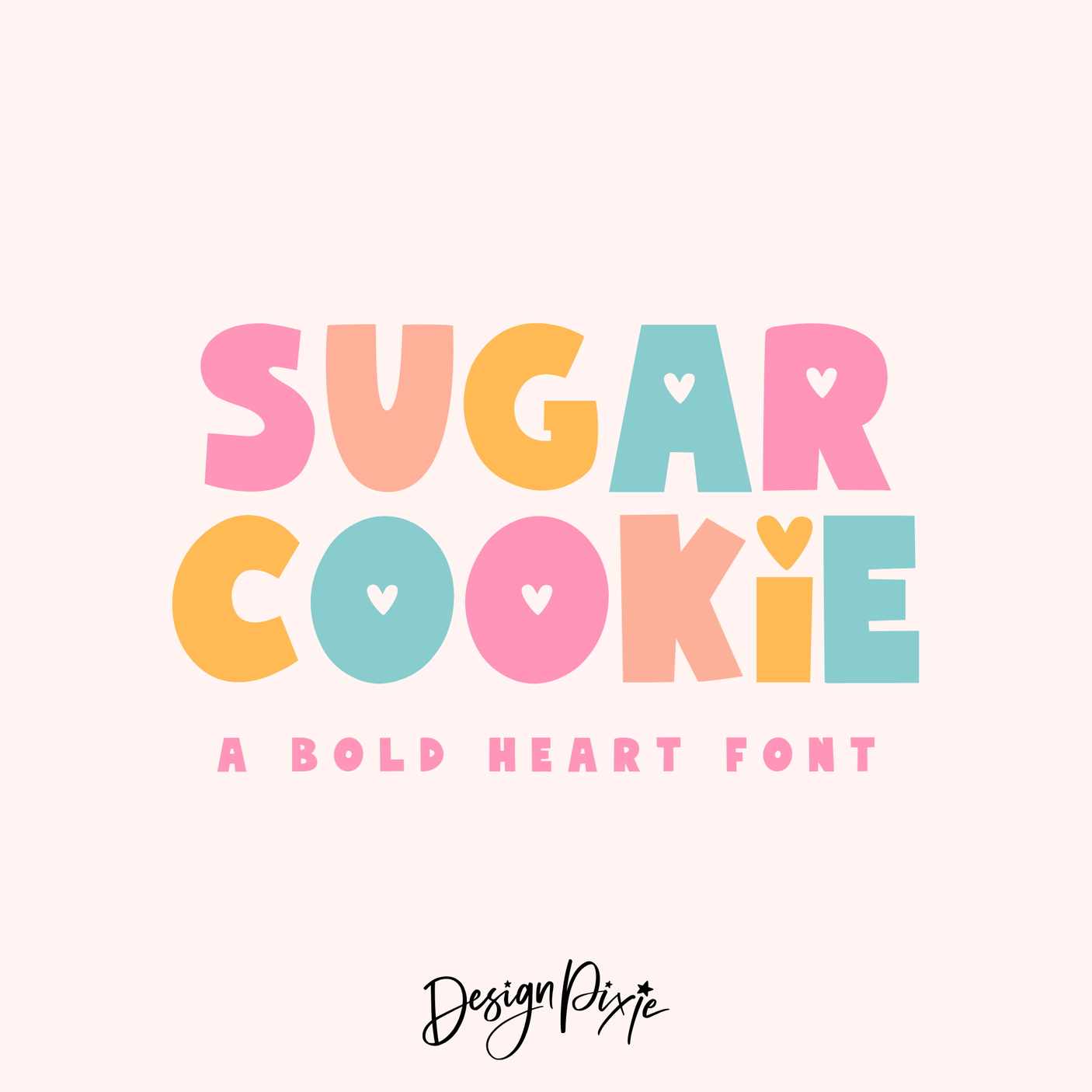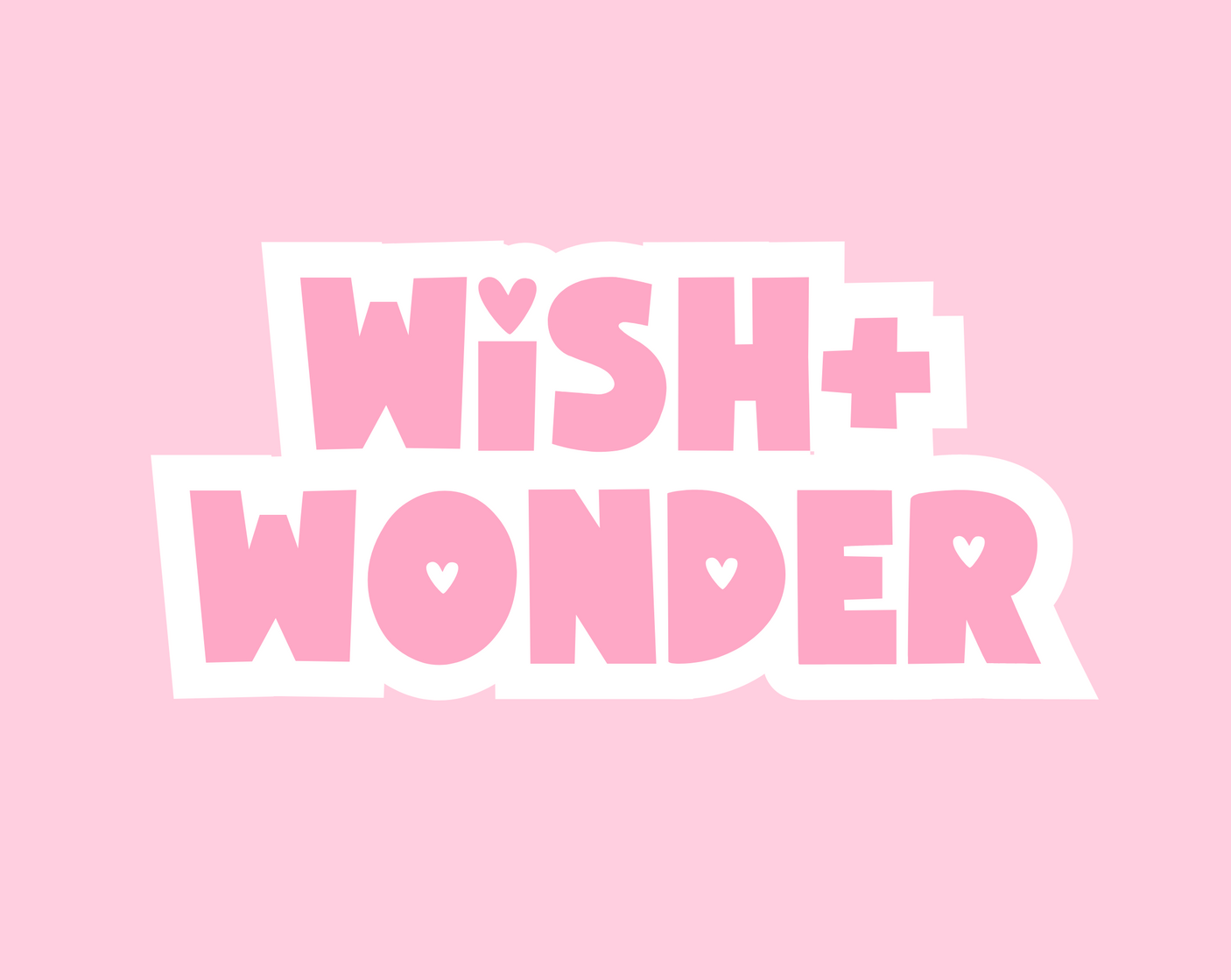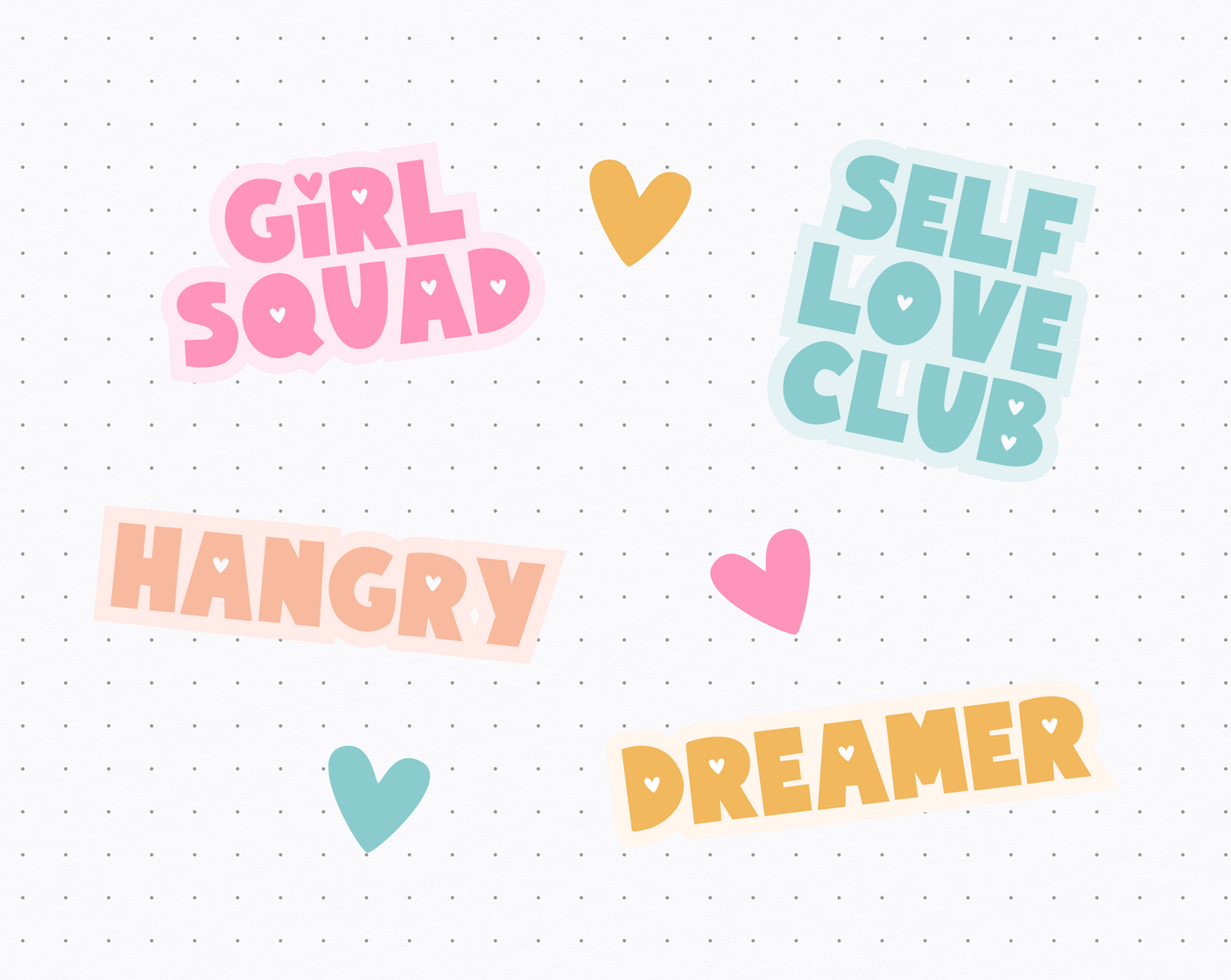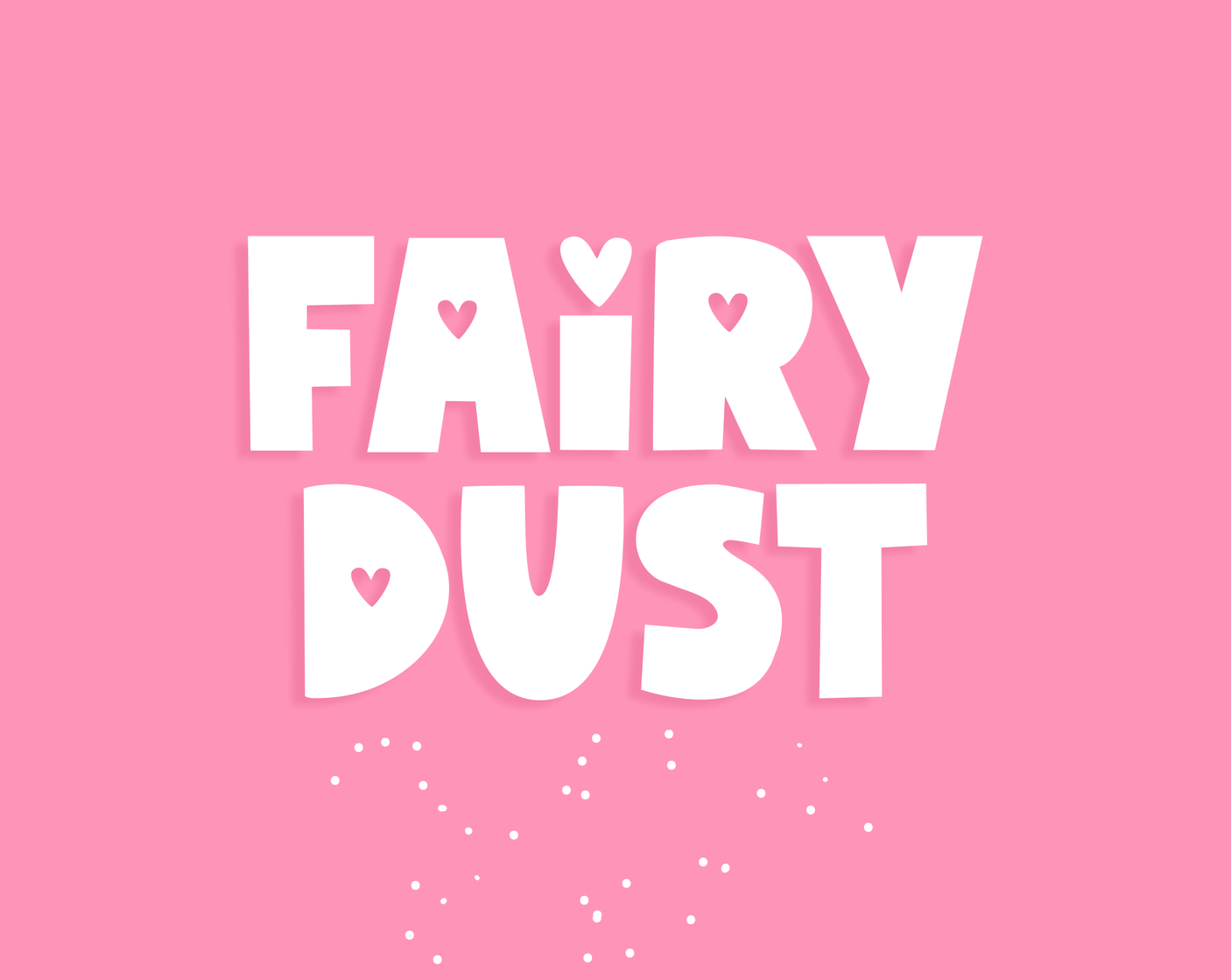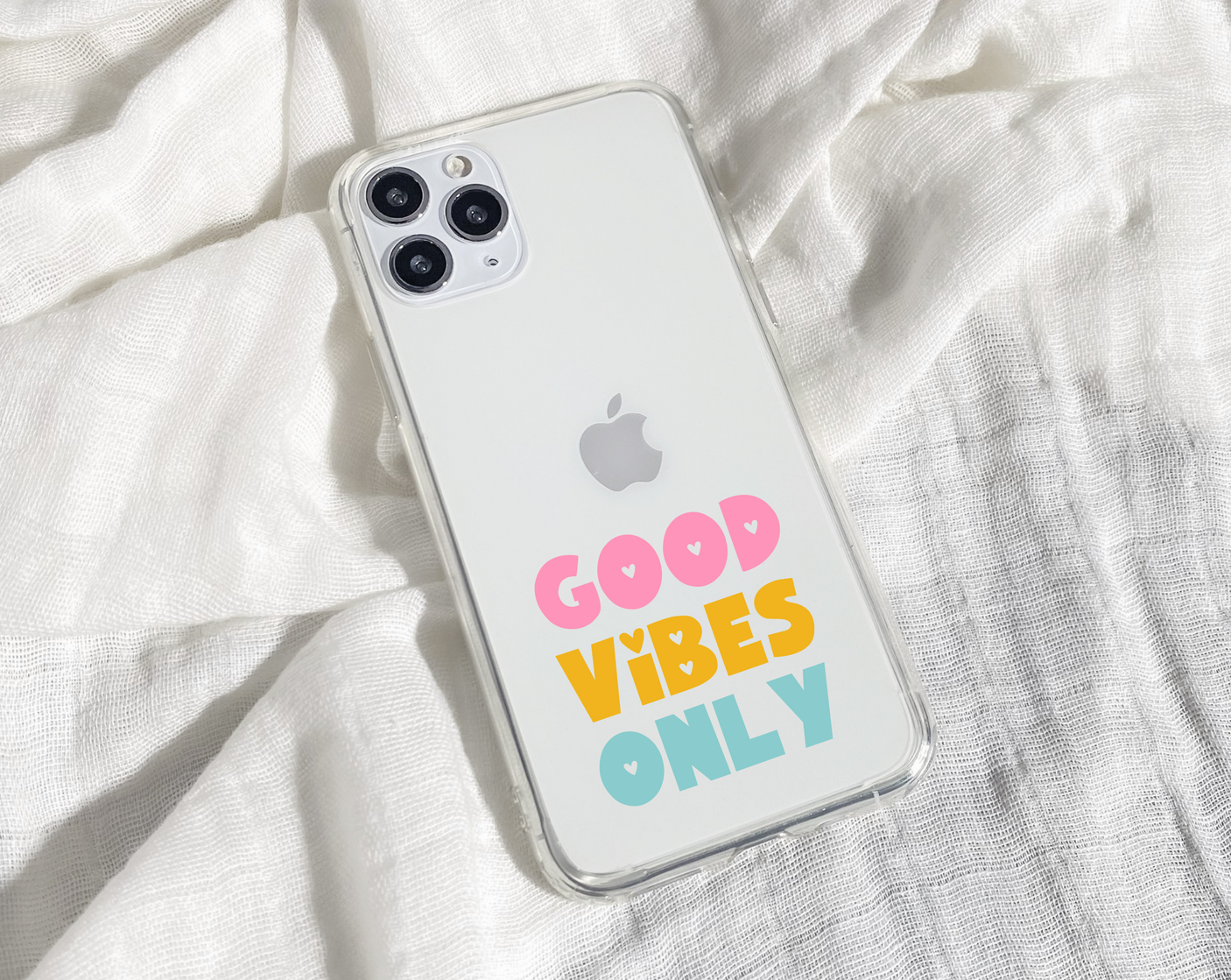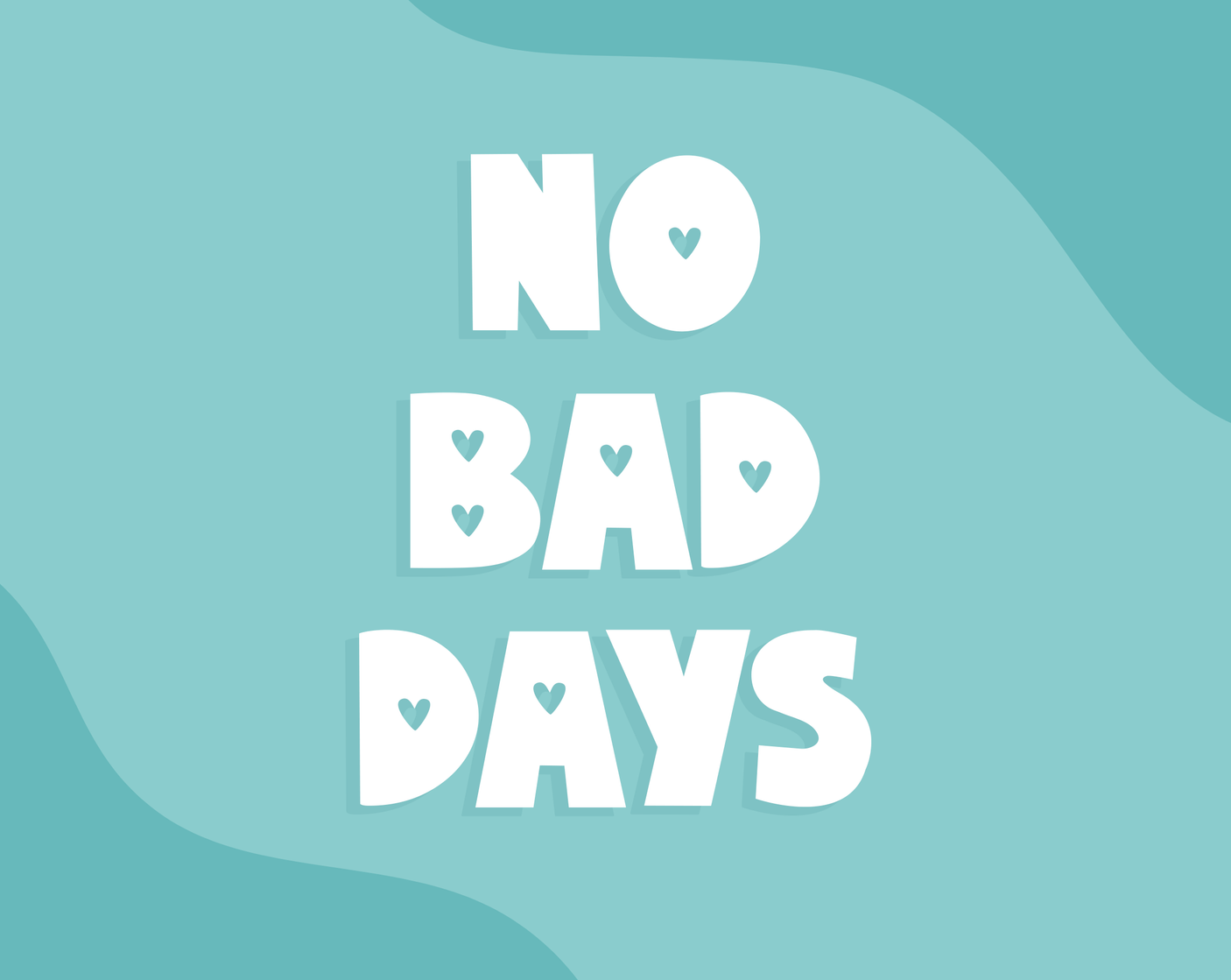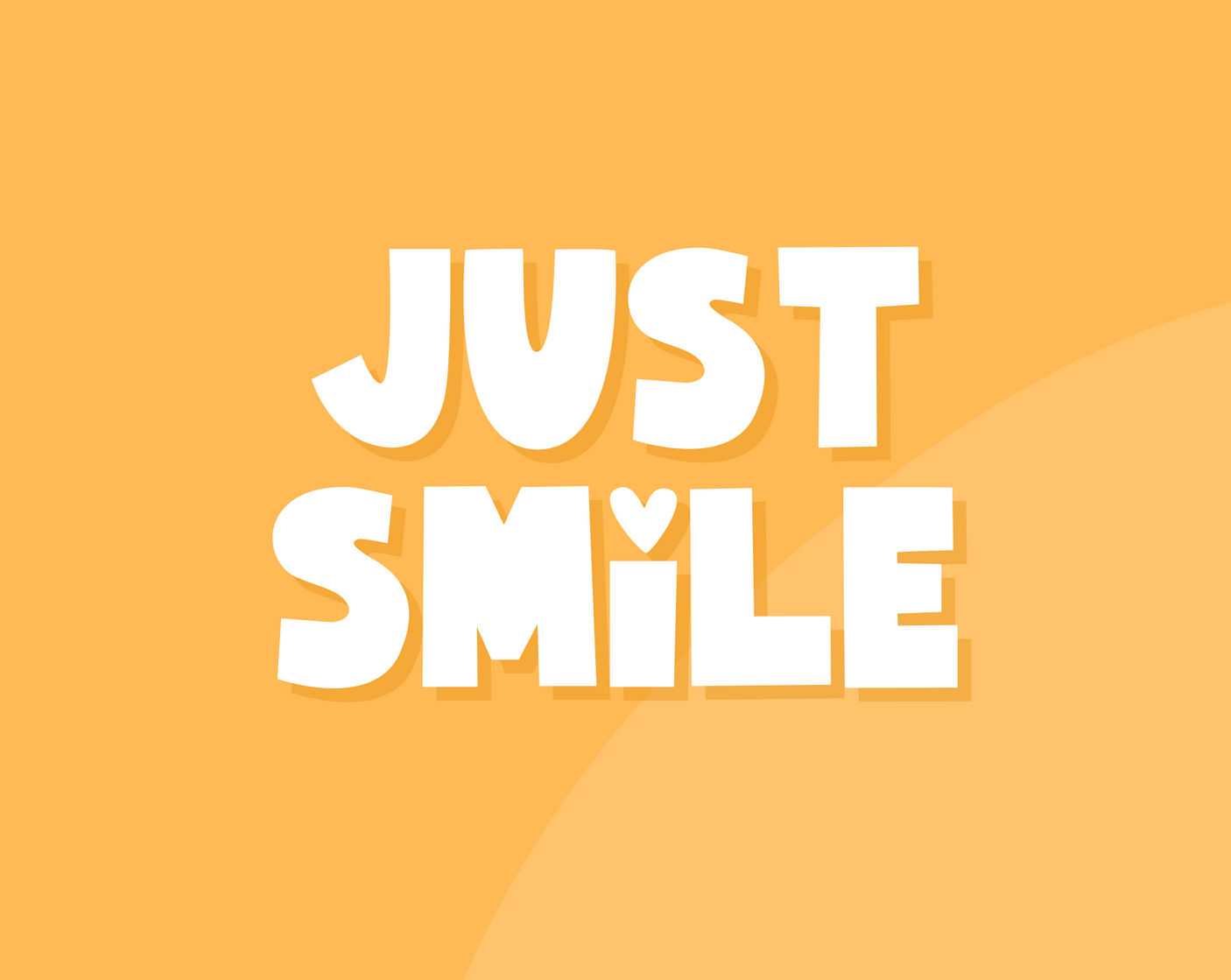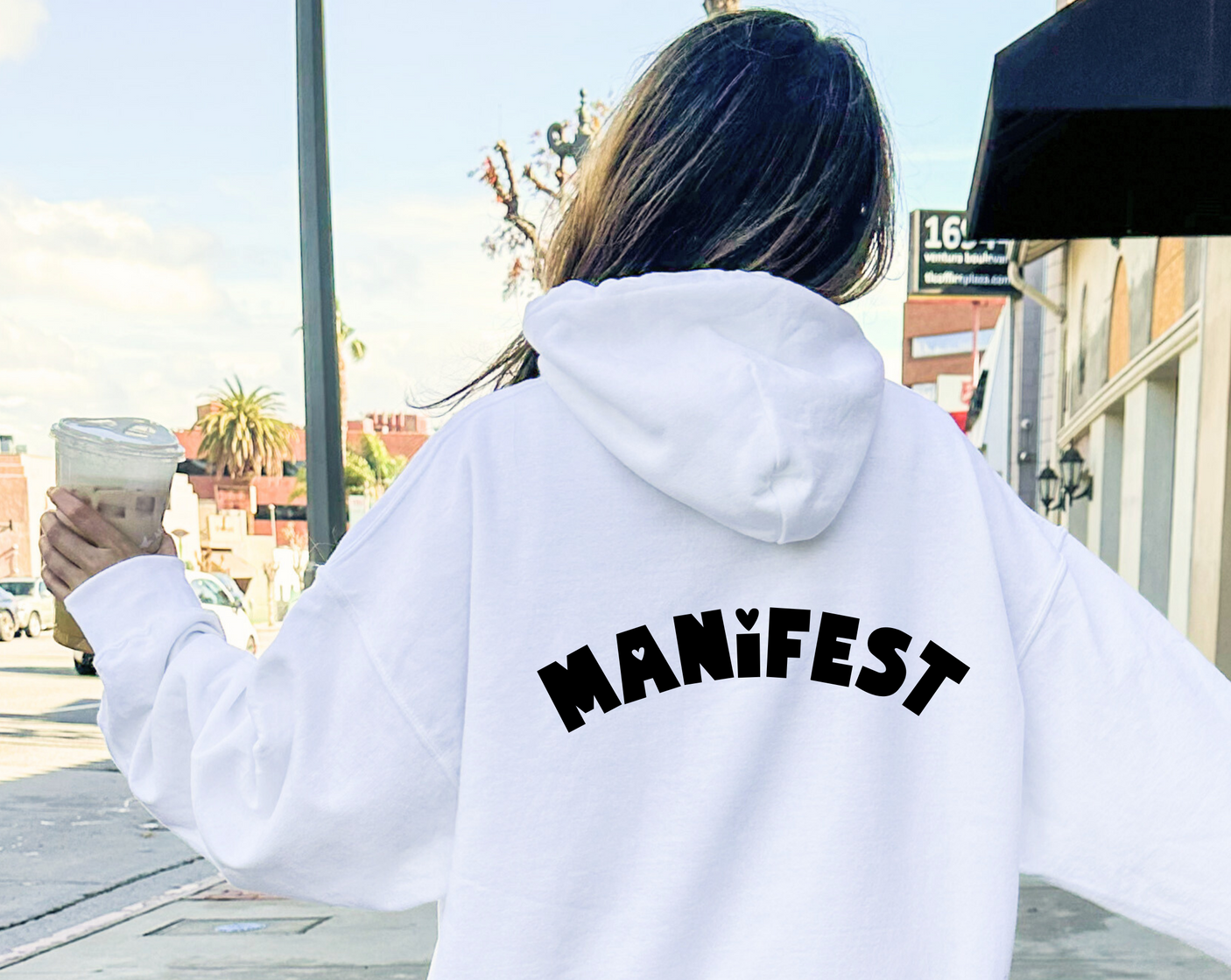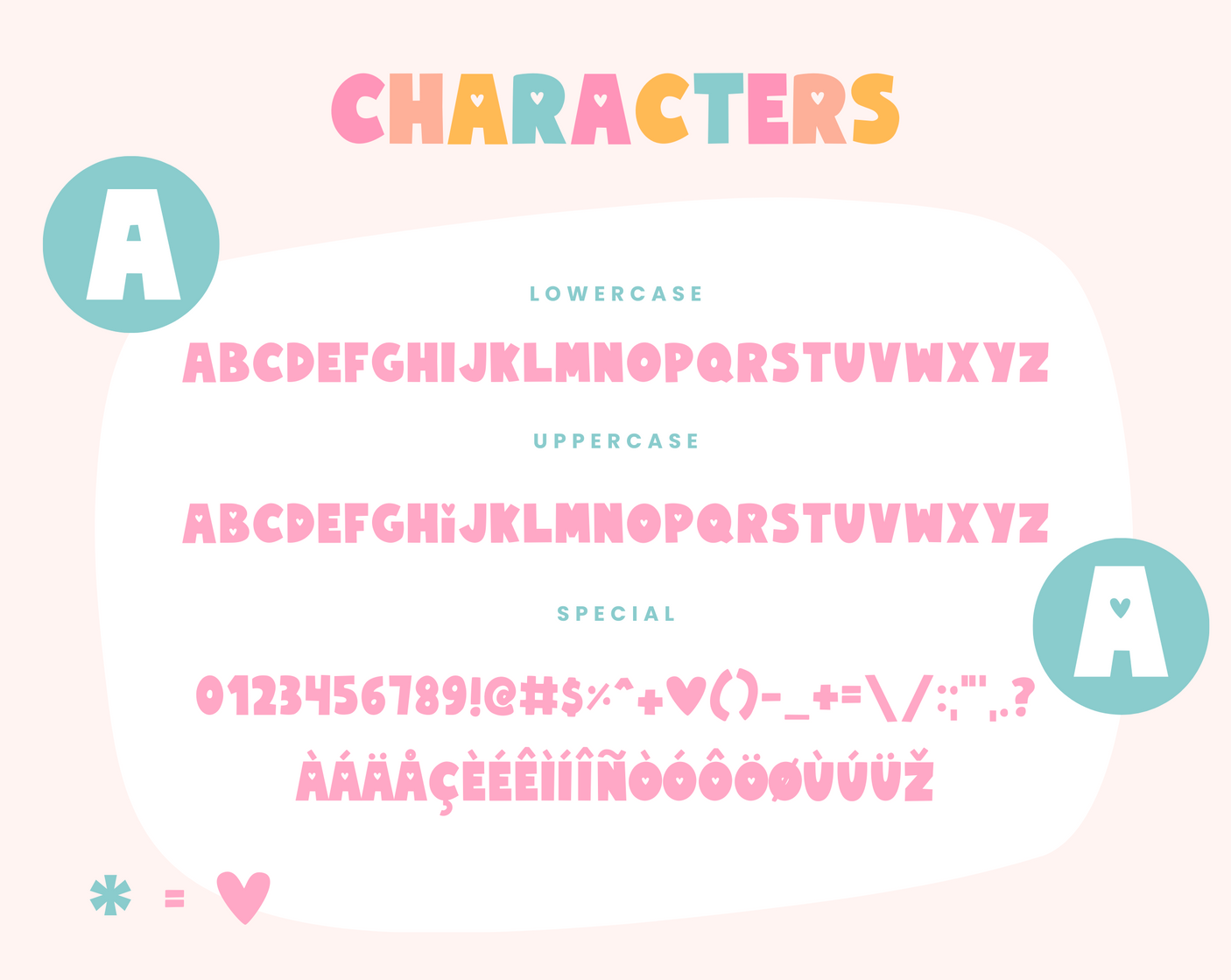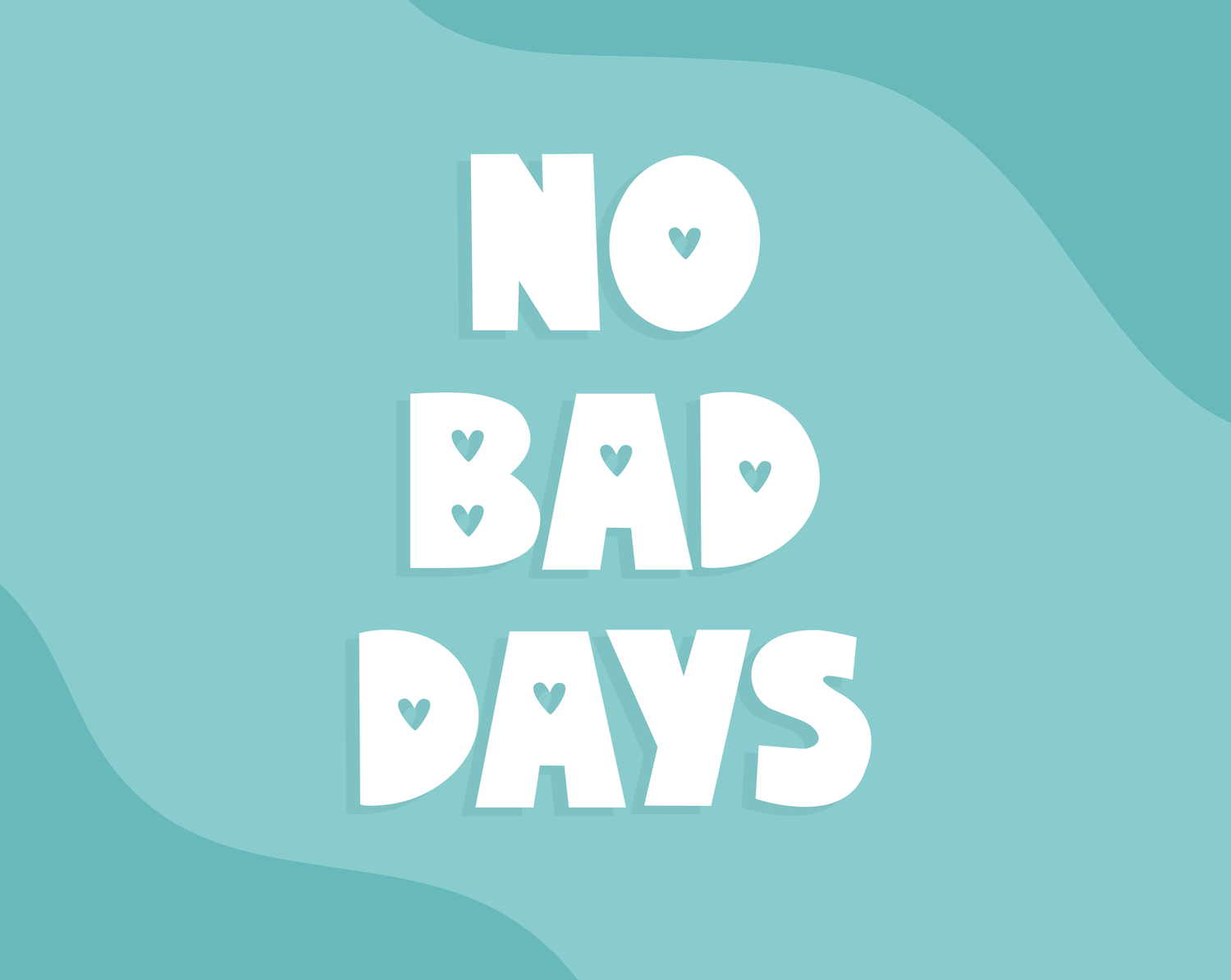
Sugar Cookie Font
Indulge in creativity with Sugar Cookie, a bold marker font that’s as sweet as its name suggests. Featuring all-caps lettering adorned with charming heart details, this font is perfect for adding a playful touch to your Cricut, Procreate, and digital projects. Sugar Cookie is ideal for creating stickers, SVG designs, and more, making your crafts and designs stand out with a delightful and whimsical charm.
The Sugar Cookie font offers a perfect blend of fun and functionality. Its bold, clean lines make it easy to read, while its heart accents add a unique and personal touch to your work. Whether you’re designing a new logo, crafting personalized gifts, or creating digital content, Sugar Cookie provides the versatility and charm needed to make your projects truly special.
Let this playful font add a dash of sweetness to your creative endeavors and watch your designs come to life with personality and flair.